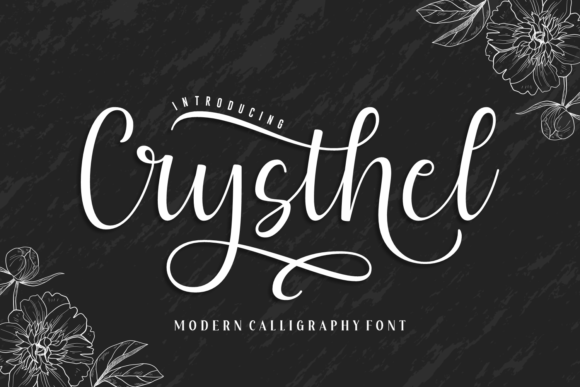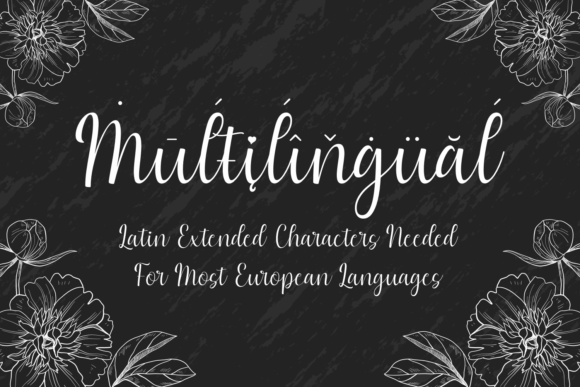
About Crysthel Font
Crysthel is a lovely and timeless handwritten font. It is the best choice for creating eye catching logos, branding and quotes. Crysthel is PUA encoded which means you can access all of the glyphs and swashes with ease!Â